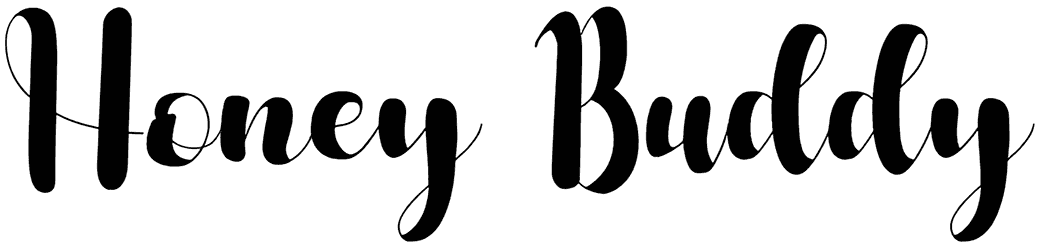
Honey Buddy Font
Honey Buddy, a calligraphy font with a nice appearance, is a good choice if you want your work to have a warm, friendly, and welcoming feel. Logos, blog headlines, branding, poster graphics, and more may all benefit from this honey font.